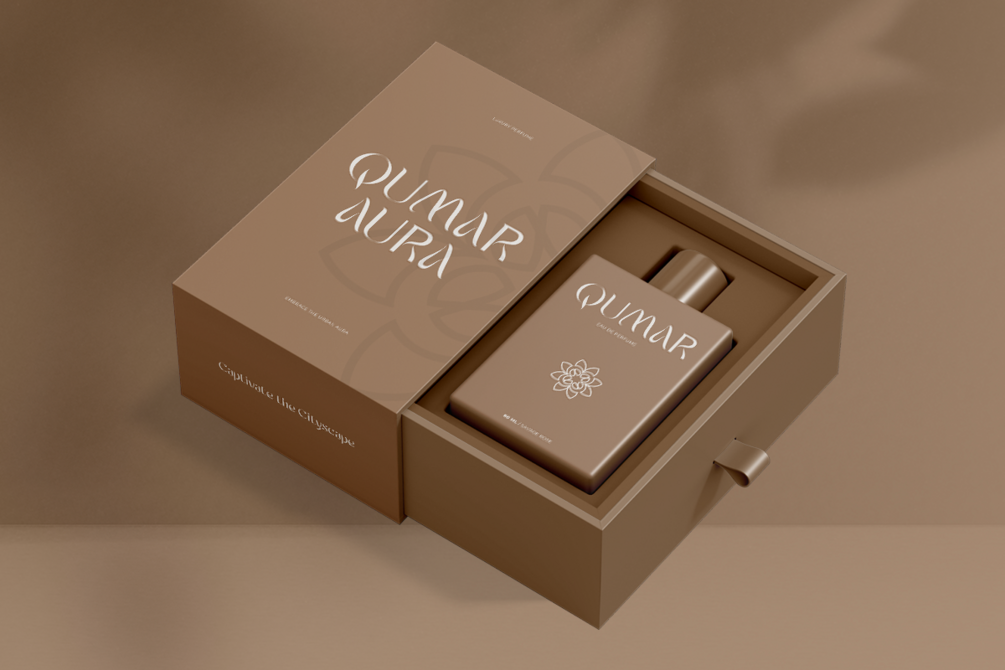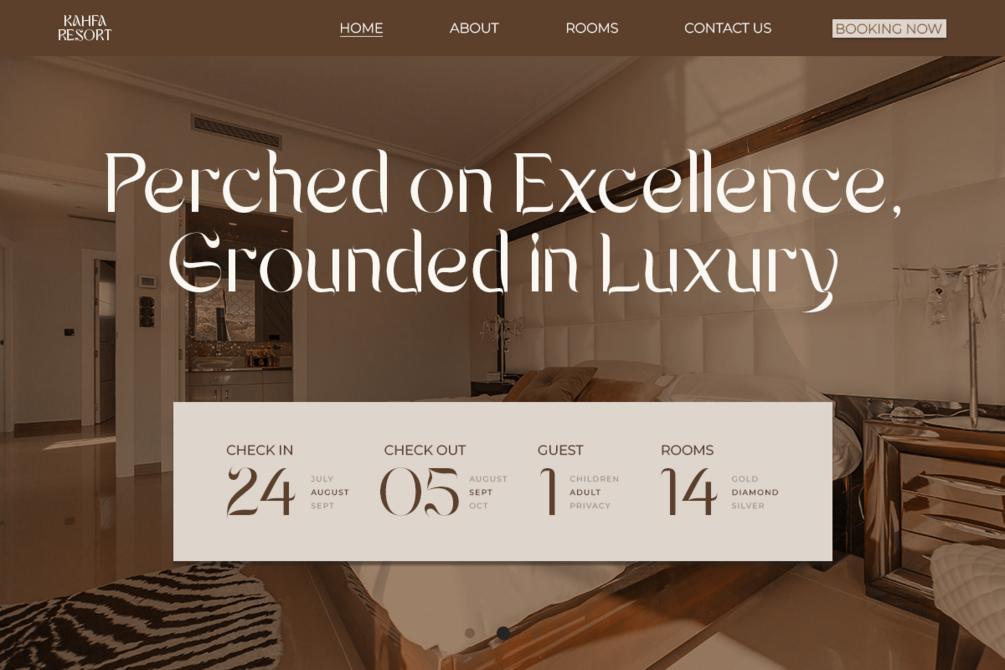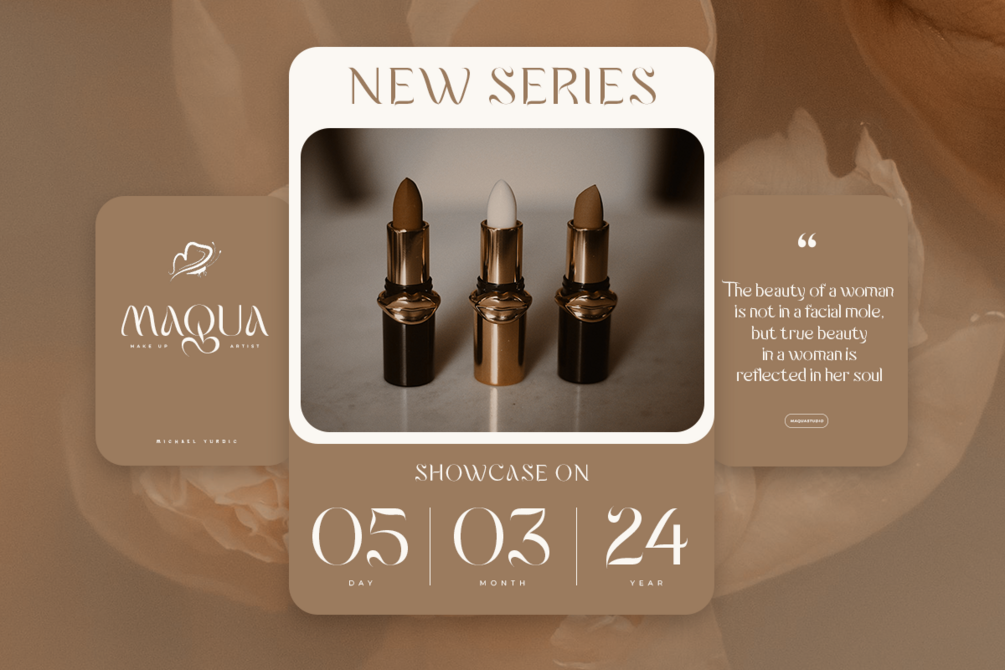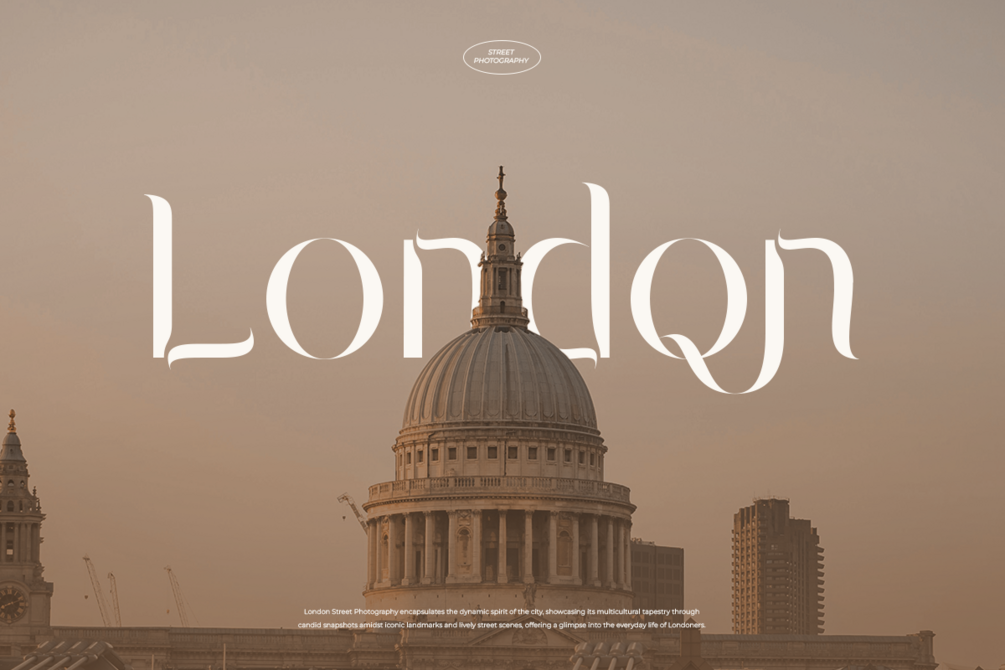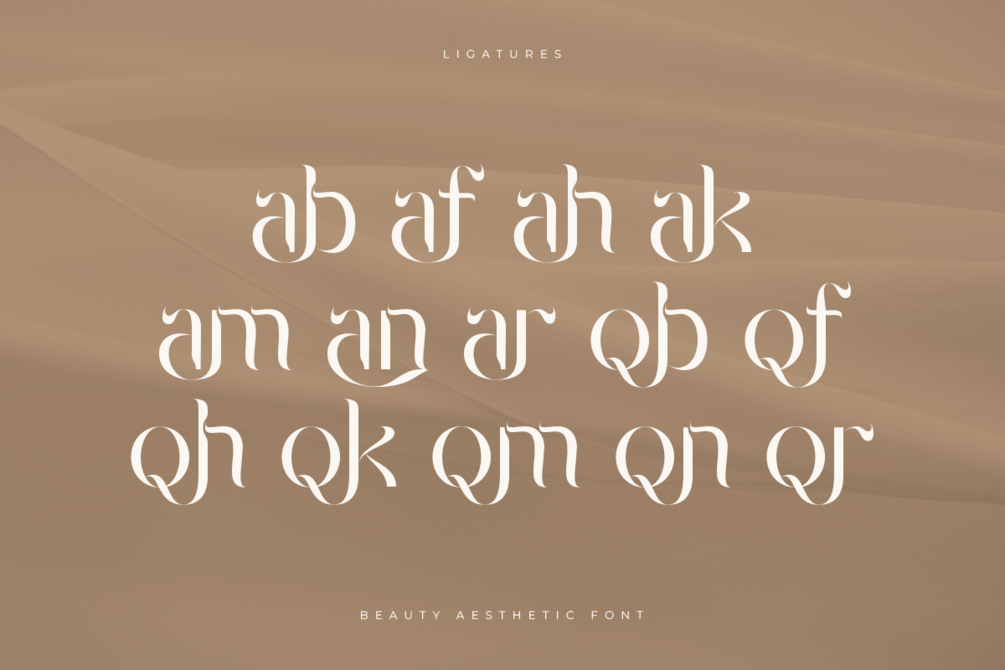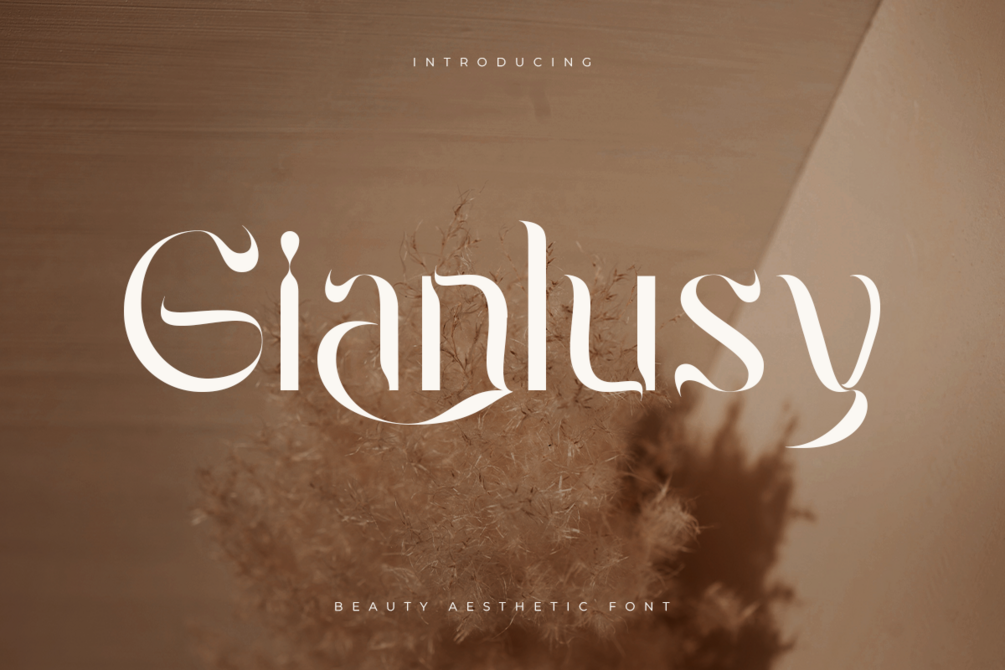
Gianlusy - Beauty Aesthetic Font
Introducing
Gianlusy - Beauty Aesthetic Font, a captivating typeface tailored for fashion and beyond. With timeless elegance, it's perfect for branding, agency work, landing pages, logos, and more. Gianlusy Font exudes sophistication, elevating every project with its refined allure.
Experience timeless beauty with Gianlusy Font.